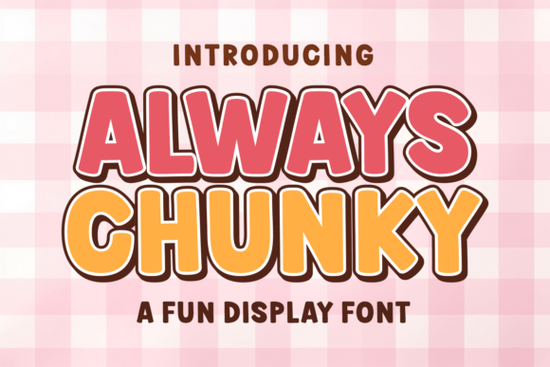
Designers, crafters, and small business owners looking for a unique font that adds personality to their projects might want to check out the Always Chunky Font. This display font brings a playful and nostalgic vibe to any design, making it ideal for children’s products, party themes, and creative branding. Its bold, retro style is perfect for adding a fun twist to digital planners, stickers, and YouTube thumbnails.
The Always Chunky Font draws inspiration from the 70s, with its candy store-like appeal and groovy alphabet. It blends modern, boho, and vintage styles into one cohesive design, offering a fresh take on classic typography. The font’s bubble letters give it a cute yet bold feel, making it great for T-shirt designs, summer events, and retro parties. Whether you're working on a logo, a social media graphic, or a print project, this font can elevate your work with its vibrant energy.
What Makes Always Chunky Unique?
Another key aspect is its multilingual support. This makes it accessible to a wider audience, allowing designers to create content in various languages while maintaining a consistent visual style. The font’s popularity among creators shows that it’s not just stylish but also functional for a range of projects.
Best Uses for Always Chunky Font
This font works well in several contexts. For instance, it’s a great choice for summer fonts and logo fonts, where a bold and expressive look is needed. It also fits perfectly with the maximalist trend, offering a lively and dynamic appearance that stands out. If you’re designing for a children’s product or a birthday party theme, this font can help bring your vision to life with its playful charm.
For those who enjoy creating digital content, the Always Chunky Font can be used in YouTube thumbnails, social media posts, and website headers. Its retro aesthetic pairs well with other vintage-style elements, making it a valuable addition to any designer’s toolkit. It’s also an excellent option for print-on-demand sellers looking to add a unique touch to their products.
How to Use Always Chunky Font in Your Projects
To get the most out of the Always Chunky Font, consider experimenting with different design elements. Pair it with simple backgrounds to let the font shine, or combine it with other retro-inspired graphics for a cohesive look. Since it’s available in multiple formats, you can easily integrate it into your workflow, whether you're using graphic design software or digital art tools like Procreate.
If you’re new to using display fonts, start by testing the Always Chunky Font on a small project. This will help you understand how it looks in different sizes and contexts. You can also explore similar fonts like Karim Font or Vandal Vibes Font to find the right style for your needs.
For more display fonts that fit different design needs, visit Noah Font or Always Chunky Font. These resources can help you discover new ways to express your creativity through typography.
Whether you're a designer, crafter, or small business owner, the Always Chunky Font offers a fun and versatile way to enhance your work. With its nostalgic appeal and modern design, it’s a great choice for anyone looking to add a playful touch to their projects.
- Try the font on a small project first to see how it looks in different contexts.
- Pair it with simple or retro-themed designs to highlight its unique style.